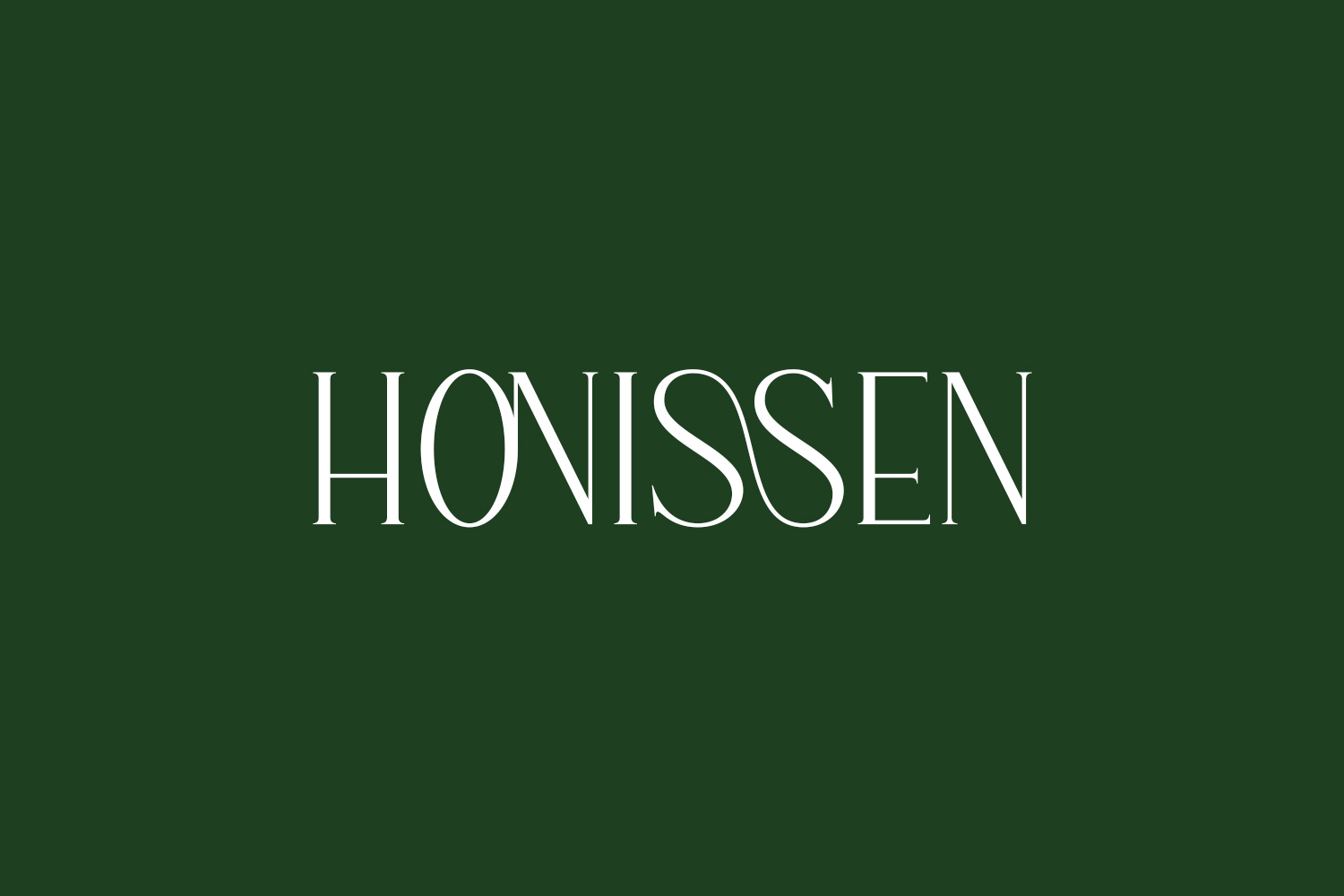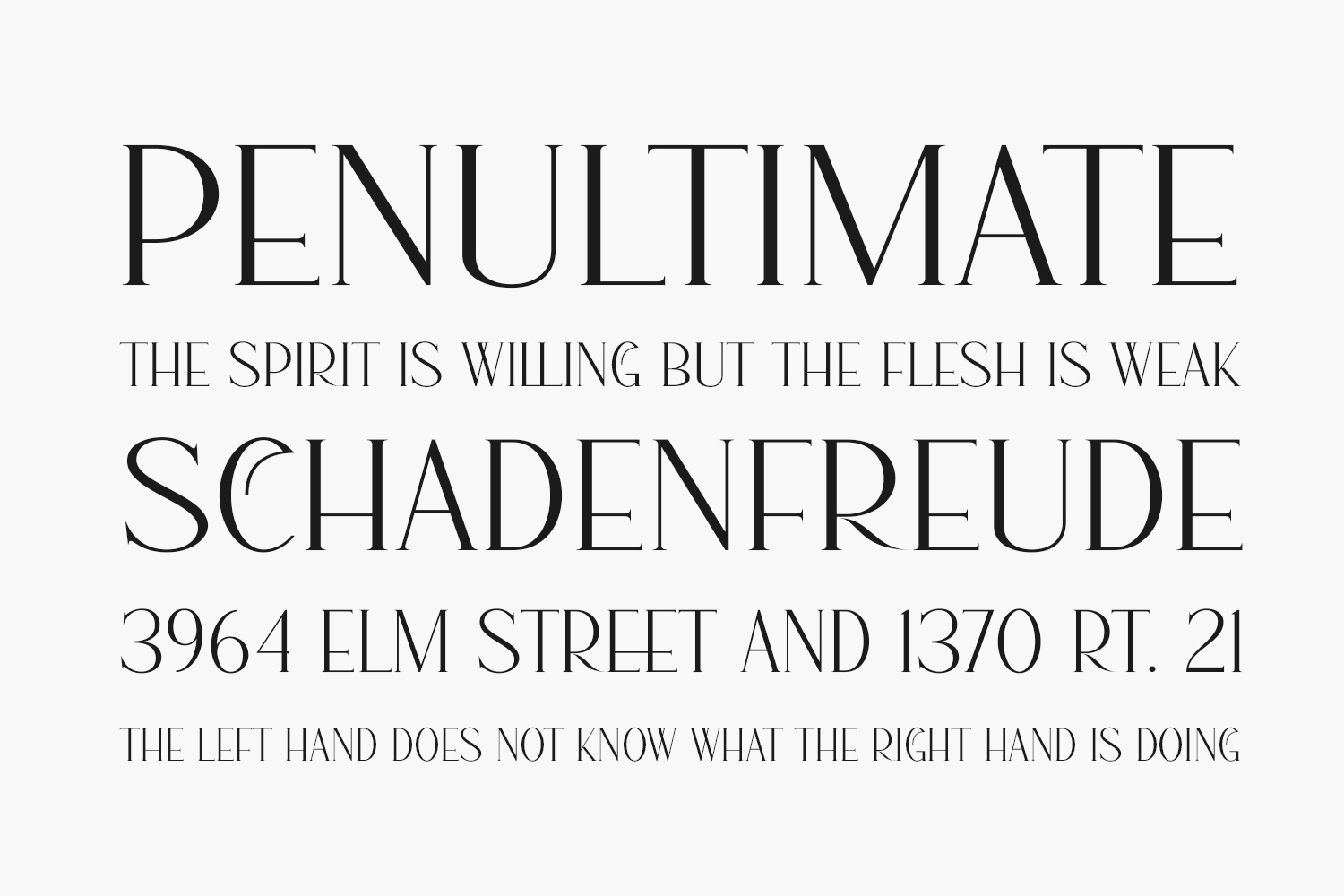
Honissen Free Font is a unique and modern serif font that combines classic elegance with a contemporary edge. With its sharp angles, bold curves, and innovative design, Honissen sets itself apart from traditional serif fonts and adds a touch of sophistication and style to any project. Whether used for headlines, titles, or body copy, this font is sure to grab your audience’s attention and make a lasting impression. Honissen Free Font makes it accessible for personal use, making it a great choice for designers looking to add a touch of modern elegance to their projects. Let Honissen bring a touch of innovation and sophistication to your designs!
Designed by Mujiono Muji Utomo